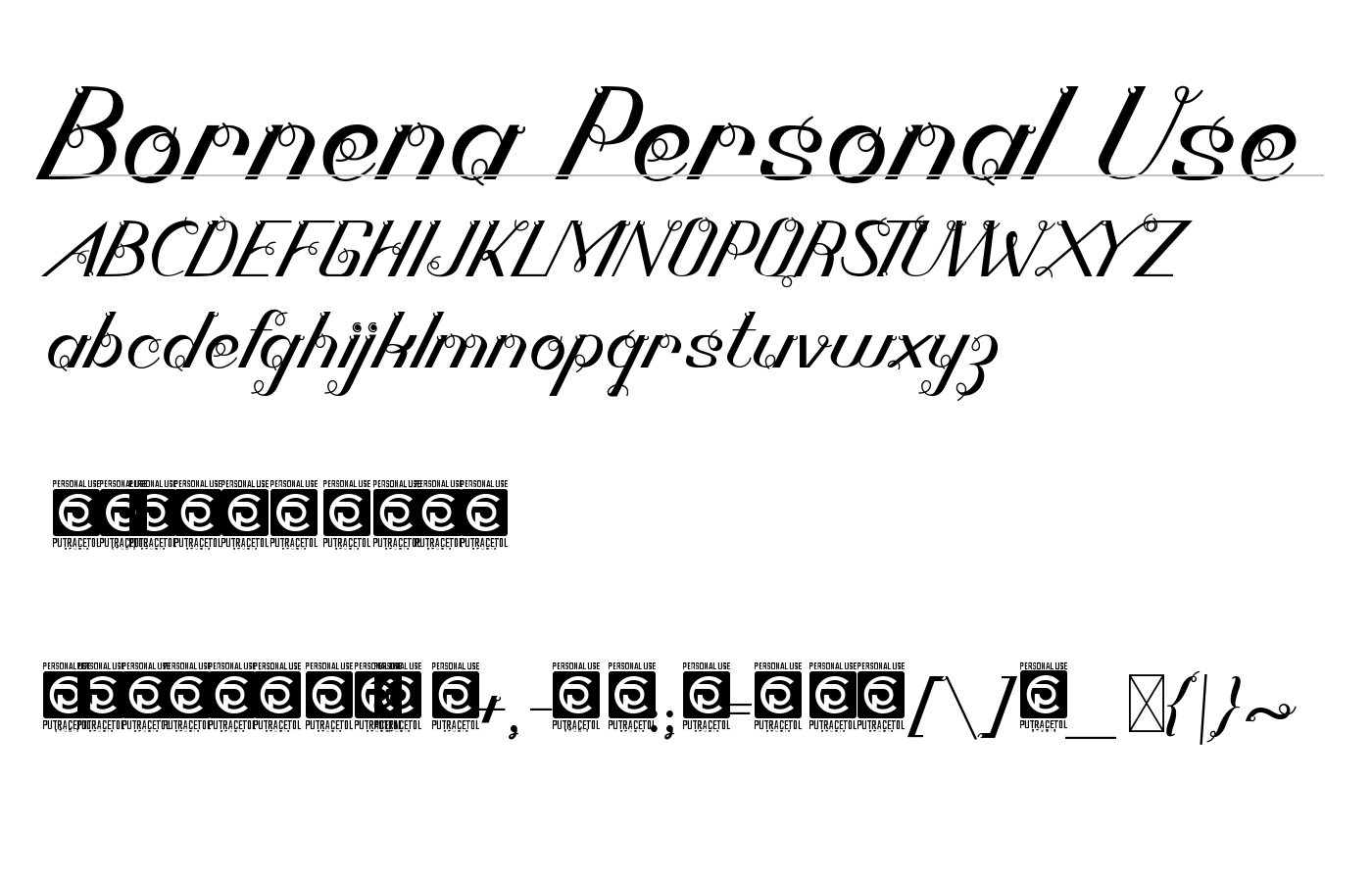
Bornena is an elegant, decorative serif font with a sophisticated italic style, featuring delicate swirls and high contrast between thin and thick strokes. Its narrow, graceful letterforms with distinctive flourishes lend a vintage yet refined personality, making it ideal for luxury branding, invitations, or fashion-related designs where a touch of charm and formality is desired. This font works best in headlines and logos where its unique ornamental details can stand out and captivate attention.
Bornena Font
About Bornena Font